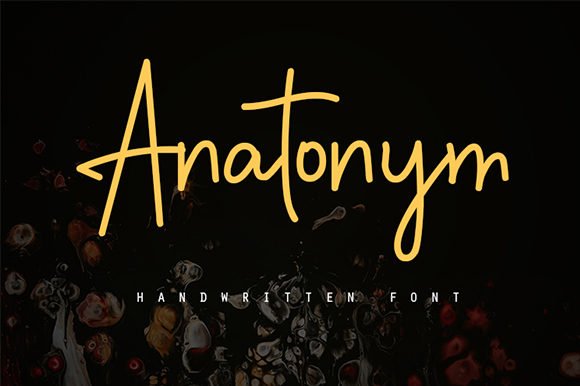
Introduction to Anatonym Font
Anatonym is a cool and fancy handwritten font with an original style.
It’s the perfect font for adding that special feel to any design project .
Why Choose Anatonym Font?